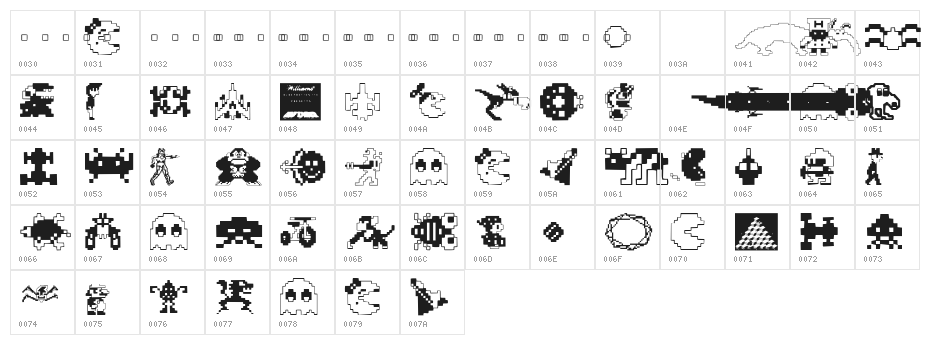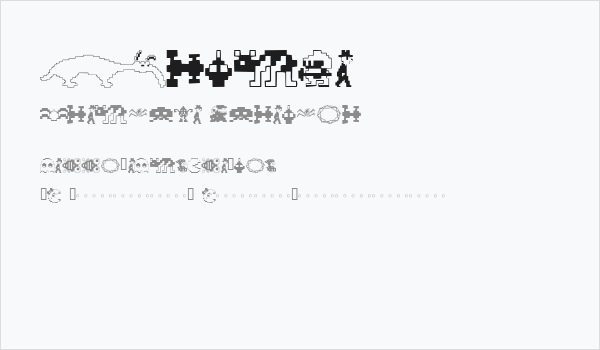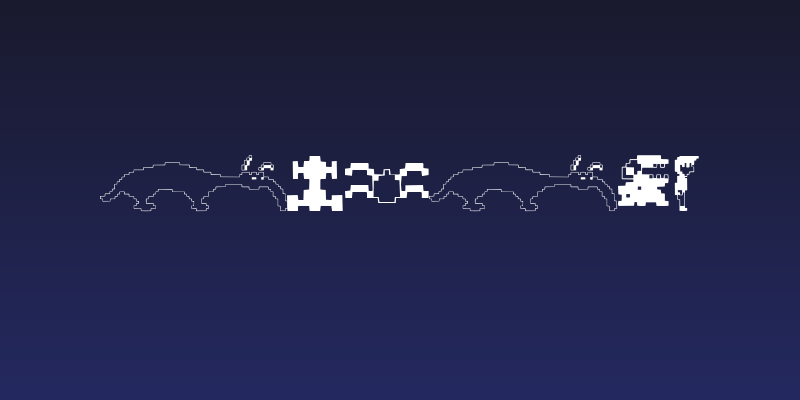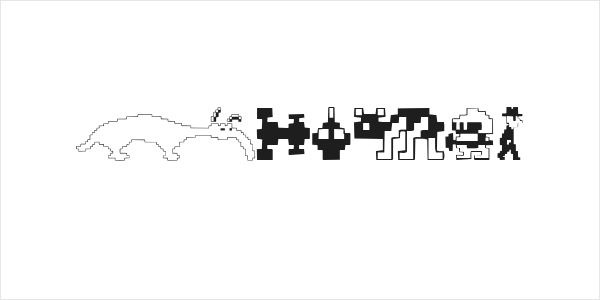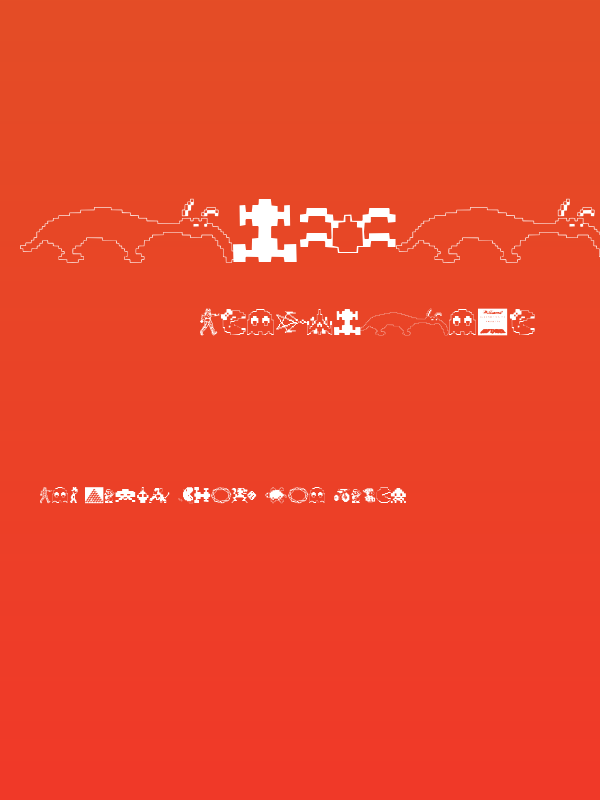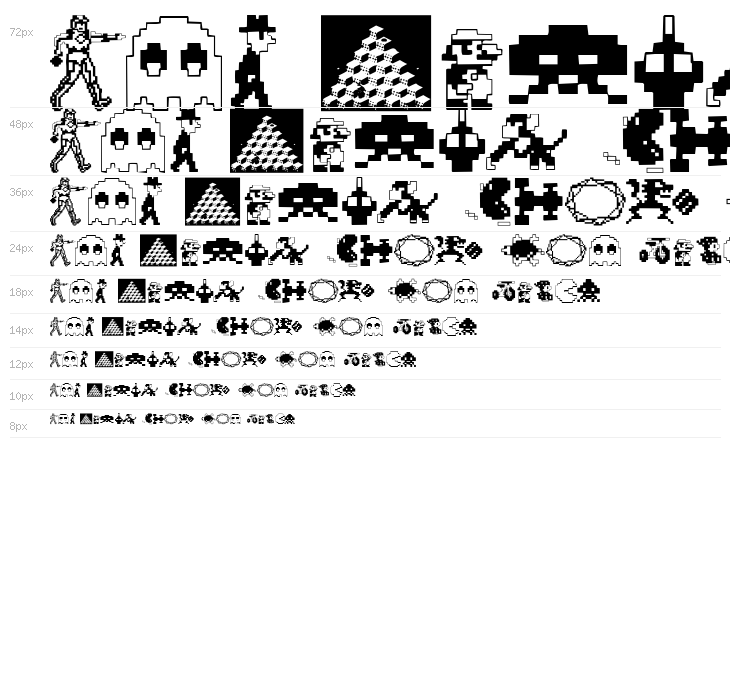
Arcade Font
Arcade Description
This font is a playful and nostalgic collection of pixelated characters and symbols inspired by classic arcade games. Each character is represented by iconic imagery from the golden age of video gaming, featuring elements like spaceships, ghosts, and other retro game graphics. The design is highly decorative, capturing the essence of 8-bit and 16-bit graphics with a strong emphasis on bold, blocky shapes. The characters are not traditional alphanumeric symbols but rather a series of themed illustrations that evoke a sense of fun and nostalgia. This font is perfect for projects that aim to capture the retro gaming aesthetic, offering a unique and engaging visual experience.
| Use Case | Logos, Posters, Merchandise |
| Proposed Projects | Ideal for retro-themed designs, video game events, posters, and merchandise that celebrate classic gaming culture. |